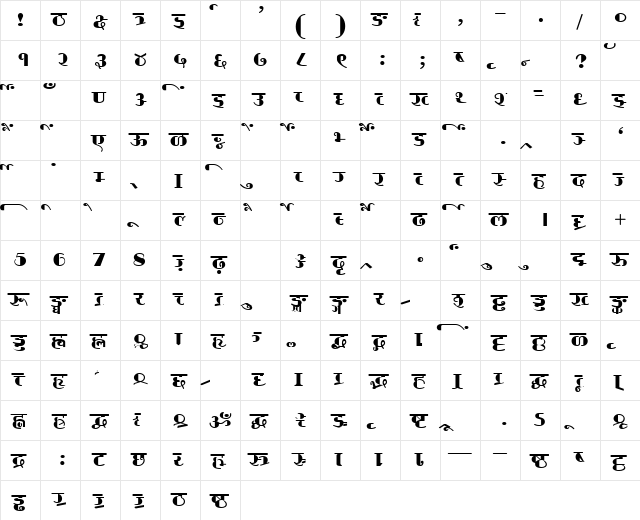
AkrutiDevPrakash Normal
Design Context for AkrutiDevPrakash Typeface
AkrutiDevPrakash is a composed and adaptable typeface that performs quietly and consistently across a wide range of design contexts.